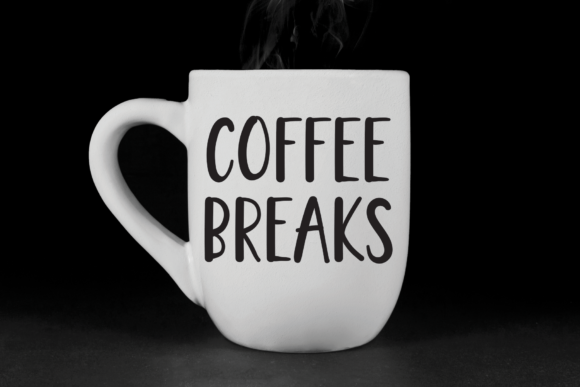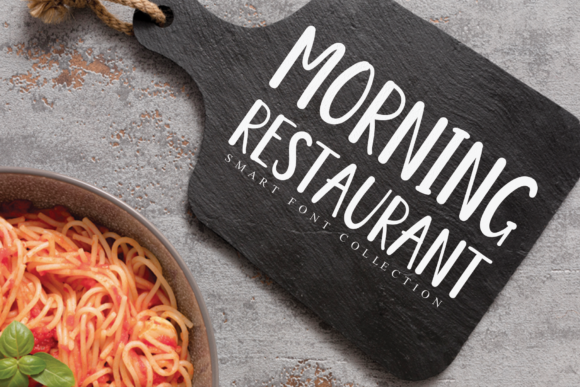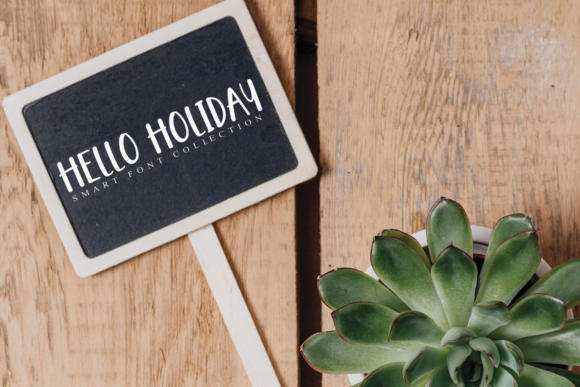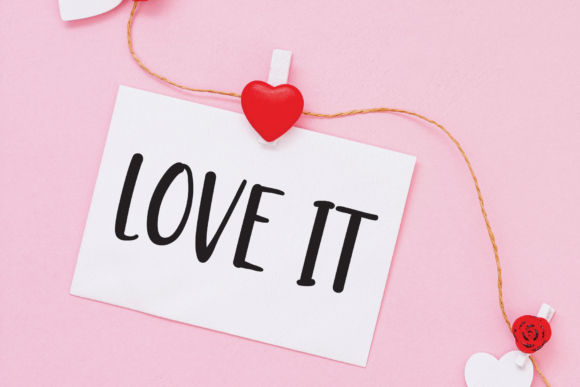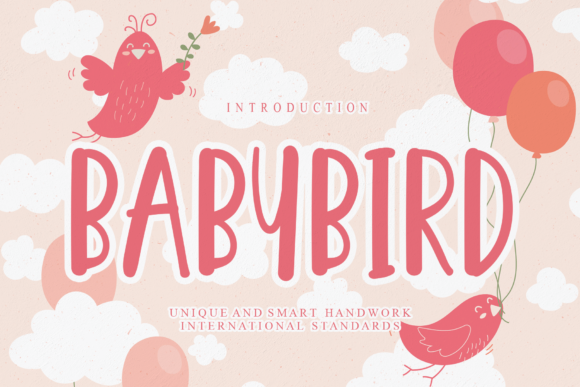
Babybird Font: The Ultimate Display Font for Creative Designs
Babybird is a cute and fun display font that has taken the design world by storm. With its playful and whimsical style, it’s perfect for designers and crafters looking to add a touch of personality to their projects. In this article, we’ll dive into the world of Babybird Font, exploring its features, uses, and benefits, as well as provide tips on how to make the most of this amazing display font.
What is Babybird Font?
Babybird Font is a display font designed to make your ideas stand out. Its unique and quirky style is reminiscent of childhood innocence and playfulness, making it perfect for projects that require a touch of whimsy. The font features rounded edges, soft curves, and a friendly demeanor that’s sure to capture the attention of your audience.
Key Features of Babybird Font
- Cute and Fun Design: Babybird Font boasts a playful and adorable design that’s sure to bring a smile to your face.
- Display Font: This font is specifically designed for display purposes, making it perfect for headlines, titles, and other attention-grabbing elements.
- Easy to Read: Despite its playful design, Babybird Font is easy to read, even at smaller sizes.
- Versatile: This font can be used for a wide range of projects, from digital designs to print materials.
Uses of Babybird Font
Babybird Font is perfect for a variety of design projects, including:
- Digital Designs: Use Babybird Font to create eye-catching social media graphics, blog posts, and website headers.
- Print Materials: Add a touch of personality to your print materials, such as brochures, flyers, and business cards.
- Crafting Projects: Use Babybird Font to create custom signs, banners, and other decorative items for your crafting projects.
- Branding and Packaging: Make your brand stand out with Babybird Font, perfect for logos, labels, and packaging designs.
Benefits of Using Babybird Font
So, why choose Babybird Font for your design projects? Here are just a few benefits:
- Unique and Memorable: Babybird Font is sure to leave a lasting impression on your audience with its unique and playful design.
- Time-Saving: With Babybird Font, you can create stunning designs in no time, thanks to its easy-to-use and versatile design.
- Customizable: Experiment with different colors, sizes, and styles to make Babybird Font your own.
Tips for Using Babybird Font
To get the most out of Babybird Font, here are a few tips to keep in mind:
- Use it Sparingly: Babybird Font is a display font, so use it sparingly to make a bigger impact.
- Experiment with Colors: Try out different colors and gradients to add depth and interest to your designs.
- Pair it with Other Fonts: Combine Babybird Font with other fonts to create a unique and visually appealing design.
Babybird Font is a cute and fun display font that’s perfect for designers and crafters looking to add a touch of personality to their projects. With its unique design, versatility, and ease of use, it’s a great addition to any design toolkit. So why not give Babybird Font a try and see how it can elevate your designs to the next level?
Use Babybird Font to make your ideas even more realistic and create spectacular designs that will leave a lasting impression on your audience!